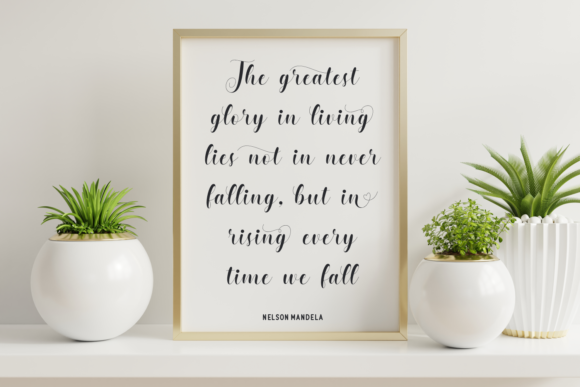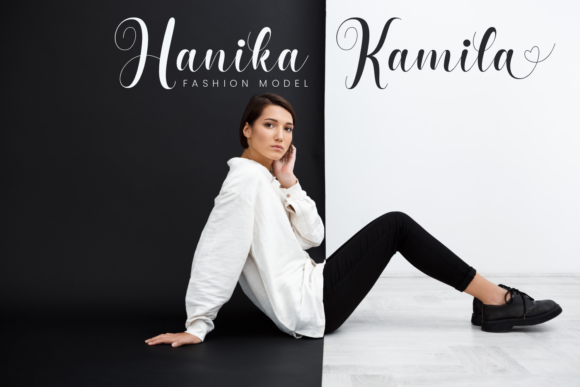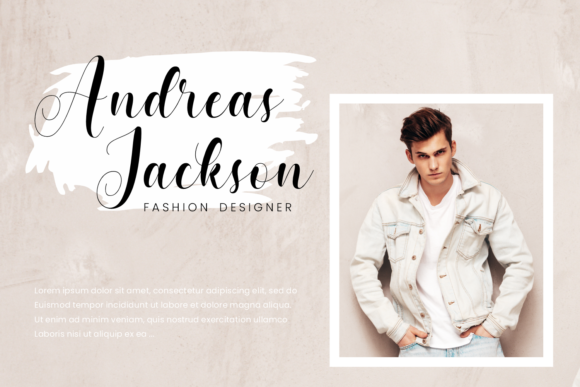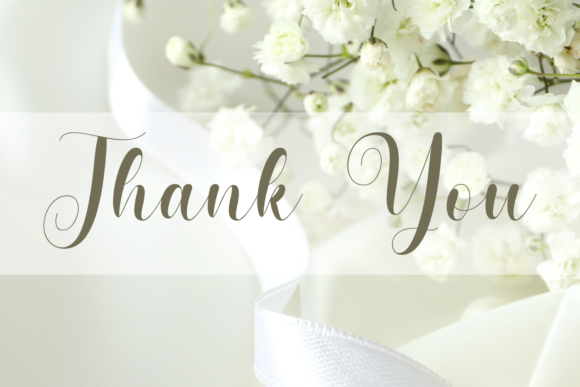
Beautiful Angeline Font
About Beautiful Angeline Font
“Meet Beautiful Angeline, an incredibly elegant script font designed to infuse your creations with timeless sophistication. With gracefully flowing characters, this unique font strikes the perfect balance between beauty and readability, ensuring that your projects exude an appealing and refined aesthetic.
The fluid strokes and delicate curves of Beautiful Angeline make it a standout choice for a wide range of creative endeavors. Whether you’re working on invitations, branding, packaging, or any other design project, this font adds a touch of class that elevates the overall visual experience.
The thoughtful design of Beautiful Angeline ensures that each character seamlessly connects with the next, creating a harmonious flow that captivates the viewer. Its balanced and easy-to-read nature makes it versatile for various applications, allowing you to convey a sense of sophistication in a clear and engaging manner.
Transform your creations into works of art with Beautiful Angeline as your typography muse. From elegant wedding invitations to upscale branding, this font brings a level of charm and refinement that leaves a lasting impression. Choose Beautiful Angeline for a font that effortlessly combines beauty and readability, ensuring that your designs stand out with an undeniably sophisticated allure.”